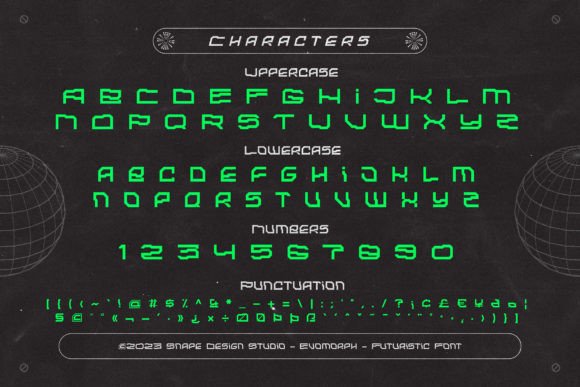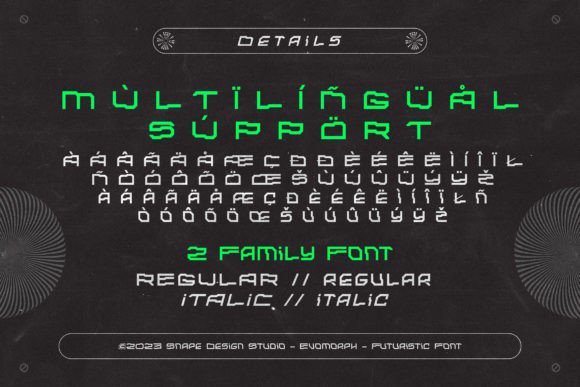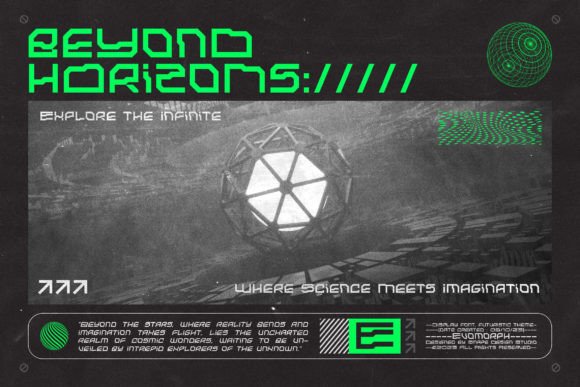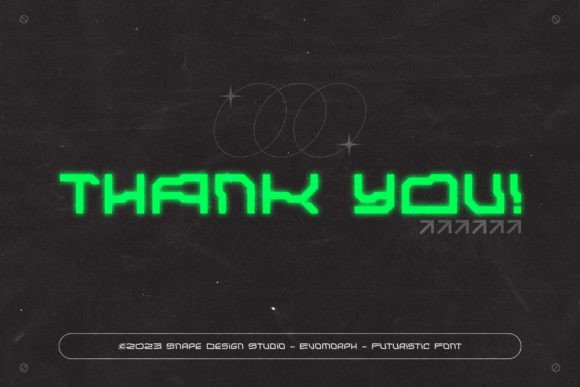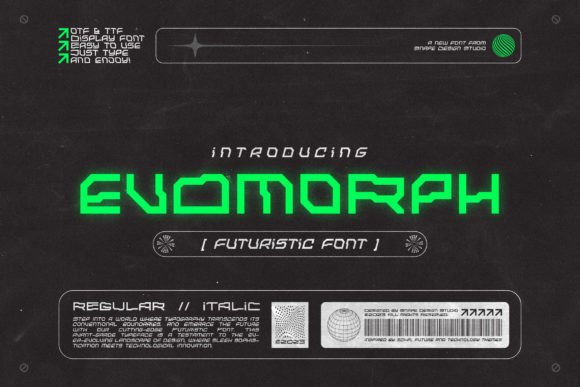
Introducing Evomorph Font: Revolutionizing Typography with Futuristic Elegance
In the ever-evolving world of design, typography plays a pivotal role in conveying messages, expressing creativity, and shaping brand identities. As technology advances and design trends shift, the demand for innovative and versatile fonts has never been greater. It is with great excitement that we introduce Evomorph, a groundbreaking font collection that embodies the perfect fusion of technology and artistry. Evomorph is not just a font; it’s an experience, designed to redefine the future of design with its sleek, dynamic, and visually striking characters.
The Essence of Evomorph
Evomorph is a futuristic font collection meticulously crafted to cater to the needs of modern designers and crafters. Its core essence lies in its ability to seamlessly blend technology and artistry, creating a unique visual language that speaks to innovation and creativity. The design of Evomorph is inspired by the sleek lines, curves, and geometric shapes that define futuristic aesthetics, making it an ideal choice for sci-fi themes, tech branding, and any project that demands a modern edge.
Key Features of Evomorph
- Dynamic and Visually Striking Characters: Evomorph boasts characters that are not only dynamic but also visually striking, ensuring that your designs capture attention and convey messages with clarity and impact.
- Seamless Blend of Technology and Artistry: The font’s design embodies a perfect blend of technological precision and artistic flair, making it versatile for a wide range of design applications.
- Versatility and Customization: Evomorph empowers creativity with its user-friendly customization options. Designers can easily modify and adapt the font to suit their project’s specific needs, ensuring a unique and personalized touch.
- Perfect for Sci-Fi and Tech Branding: Given its futuristic appeal, Evomorph is particularly suited for sci-fi themes and tech branding, where conveying innovation and modernity is crucial.
Applications of Evomorph
The versatility of Evomorph makes it suitable for a myriad of design applications. Whether you’re working on a sci-fi movie poster, a tech startup’s brand identity, or a futuristic video game, Evomorph provides the perfect typographic solution. Its dynamic and visually striking characters can elevate your designs, making them stand out in a crowded creative landscape.
Digital and Print Media
In the realm of digital media, Evomorph can be used to create engaging and futuristic website headers, app logos, and digital advertisements. For print media, it can add a modern touch to magazine covers, posters, and brochures, especially those related to technology, science, and innovation.
Branding and Marketing
Evomorph’s unique aesthetic makes it an excellent choice for branding and marketing materials, particularly for companies looking to project a cutting-edge image. Its customization options allow brands to create a distinctive typographic voice that resonates with their target audience.
Why Choose Evomorph?
Choosing Evomorph for your design projects comes with numerous benefits. Not only does it offer a fresh and contemporary look, but it also provides practical advantages such as:
- Enhanced Readability: Despite its futuristic design, Evomorph maintains high readability, ensuring that your message is communicated effectively.
- Support for Multiple Languages: With support for multiple languages, Evomorph is a globally accessible font, suitable for international brands and projects.
| Font Name | Evomorph Font |
| Author | snapedsgn |
Evomorph is more than just a font collection; it’s a tool for creative expression and innovation. By merging technology with artistry, Evomorph offers designers and crafters a unique opportunity to push the boundaries of typography and design. Whether you’re creating a futuristic brand identity, a sci-fi themed project, or simply looking for a modern and versatile font, Evomorph is poised to inspire and elevate your creative endeavors. Embrace the future of typography with Evomorph and discover a world where technology meets aesthetics in the most innovative way.